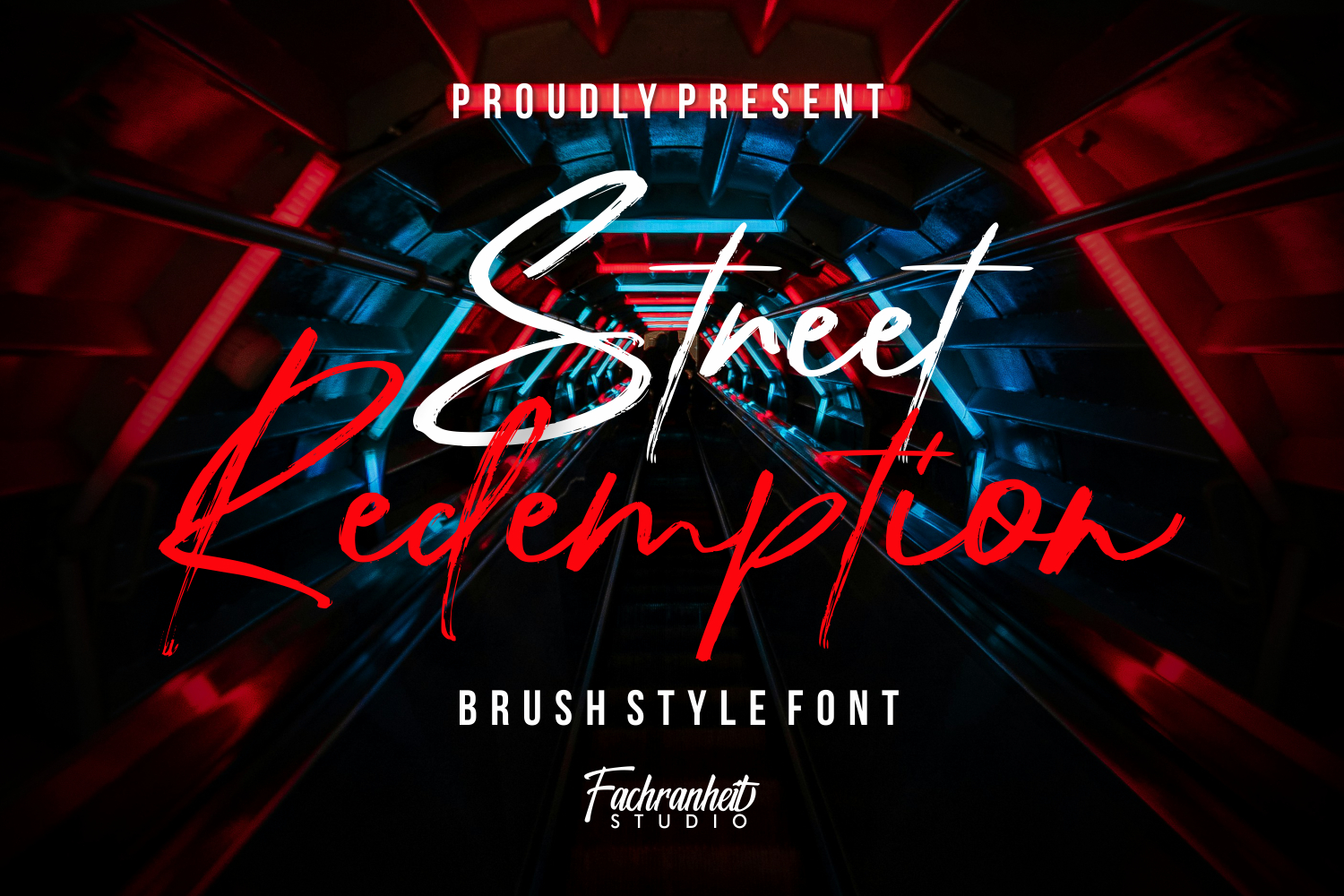
Street Redemption
Street Redemption is a brush style font. It can easily be matched to an incredibly large set of projects and use it for movie posters, flyers, headline, logo, logotype, packaging and much more!, so add it to your creative ideas and notice how it makes them stand out!
• Basic Latin A-Z and a-z
• Alternate
• Symbols
• Multilanguage Support